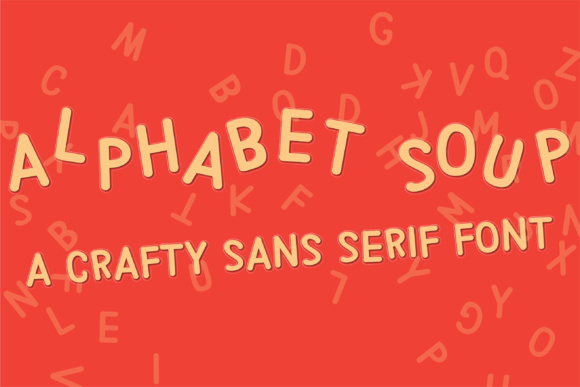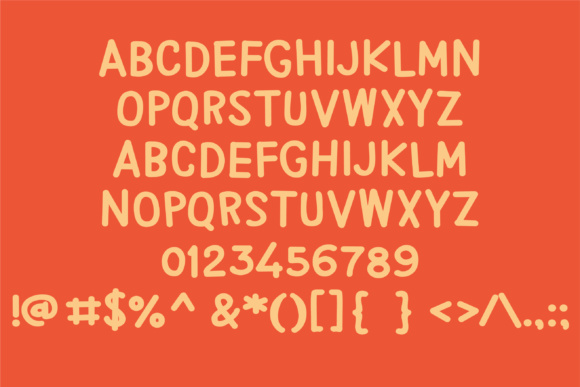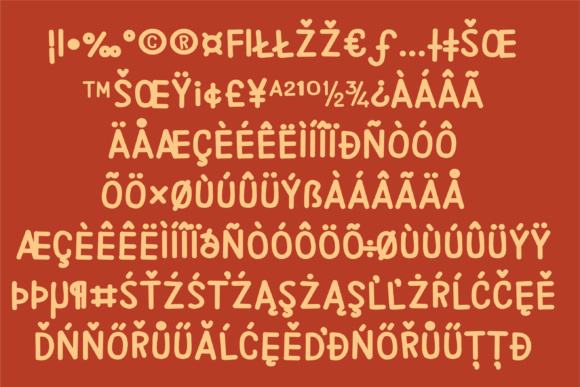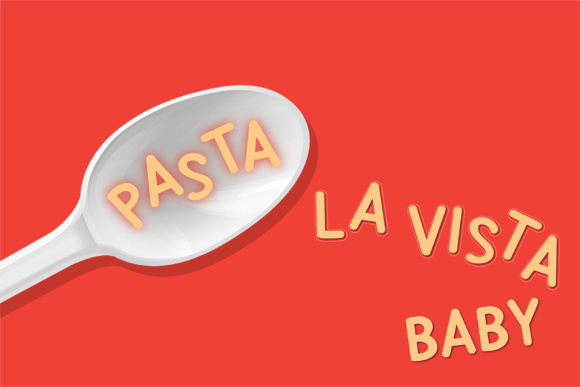
PN Alphabet Soup Font
About the PN Alphabet Soup Font
Unleash your creativity with PN Alphabet Soup Font, a versatile font perfect for a wide range of applications. This cute hand-crafted sans serif font doesn’t have a true lowercase, rather it has two uppercases that are different from one another.
Its playful, slightly quirky nature makes it ideal for children’s books, branding for playful businesses (e.g., toy stores, ice cream shops), and short, impactful headlines. It would also work well on packaging for products targeting a younger demographic or those with a whimsical aesthetic. However, avoid using it for body text or long paragraphs; the lack of lowercase letters and its hand-crafted feel make it unsuitable for large amounts of continuous reading.
PN Alphabet Soup Font pairs well with clean sans-serif fonts like Open Sans for a balanced contrast, or a more geometric sans-serif such as Futura for a modern touch. For a more playful combination, consider pairing it with a rounded script font like Pacifico.
The overall personality is undeniably fun and friendly, but retains a degree of sophistication due to its crafted quality. This makes it versatile within its niche, suitable for projects that need a touch of whimsy without sacrificing professionalism.